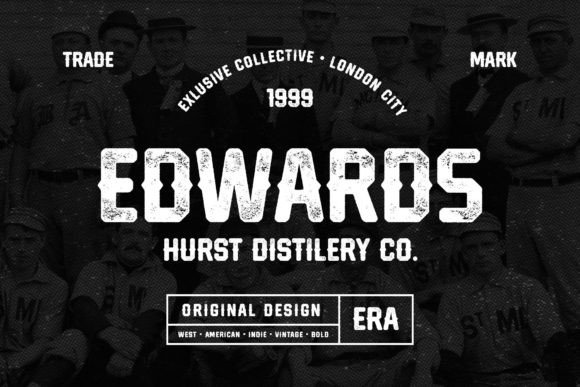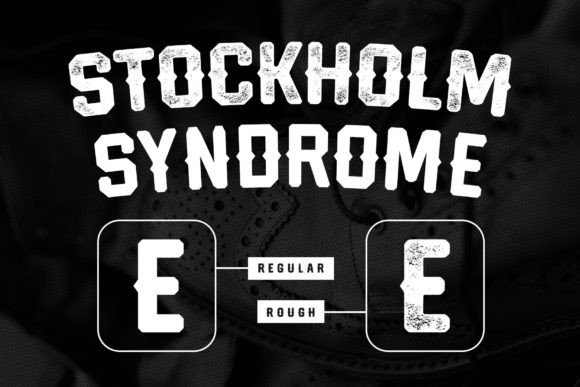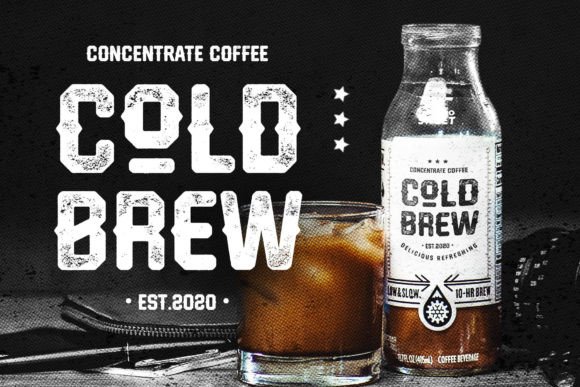
Introduction to Hardcore Hipsta Font
As a designer, there’s nothing quite like the thrill of landing on the perfect font for a creative project. You’ve got your concept nailed down, your color palette is on point, and now all you need is that one element to tie everything together. For many designers, that element is the Hardcore Hipsta Font – a vintage display font that’s equal parts tough and elegant.
Whether you’re working on a sports campaign, designing a new logo, or crafting a bold poster, the Hardcore Hipsta Font is the perfect choice. With its block-based, sharp-edged design, it exudes confidence and authority – making it a valuable resource for designers who want to make a statement.
Available in regular and rough styles, the Hardcore Hipsta Font is a high-quality design resource that’s perfect for a wide range of applications, from storefronts and labels to coffee cups and stickers. And the best part? It’s available for free download, making it a transparent background-friendly option for designers who want to add a touch of vintage flair to their work.
Key Features of Hardcore Hipsta Font
- High-quality, distressed design ideal for creative projects and artistic expressions.
- Characterized by its distressed, vintage aesthetic, perfect for adding a unique touch to creative projects.
- Designed to be highly legible, even at small font sizes, making it suitable for a range of design applications.
Honest Review: Hardcore Hipsta Font
I recently stumbled upon the Hardcore Hipsta Font while searching for a free design resource to add a unique touch to my creative project. At first glance, I was drawn to its bold and edgy aesthetic, which seemed perfect for a high-quality design. I was excited to dive in and see how it would perform.
Here are some things that I really liked about the Hardcore Hipsta Font:
- ✨ Unique and eye-catching design that’s sure to stand out in any creative project.
- ⚠️ Limited font styles and weights available, which may not be ideal for projects requiring a wide range of font options.
- ⚠️ Some users may find the font’s bold aesthetic overwhelming or difficult to read in certain contexts.
Overall, I think the Hardcore Hipsta Font is a solid choice for designers looking for a unique and high-quality font to add to their creative project. While it may not be perfect for every use case, it’s a great option for those seeking a bold and eye-catching design element.
How to Use Hardcore Hipsta Font
The Hardcore Hipsta Font is a unique design resource ideal for creative projects. Its distressed texture and high-quality aesthetic make it perfect for adding a vintage touch to your designs.
For the best results, use the Hardcore Hipsta Font in conjunction with other distressed textures and fonts. Some common use cases include:
- Coffee shop or restaurant menus
- Music festival or concert posters
- Photography or art portfolios
Is the Hardcore Hipsta Font suitable for high-quality print projects?
Yes, the Hardcore Hipsta Font is designed to be a high-quality font, making it suitable for a wide range of print projects, including business cards, posters, and other marketing materials. The font’s high-resolution design ensures crisp and clear text, even at large font sizes.